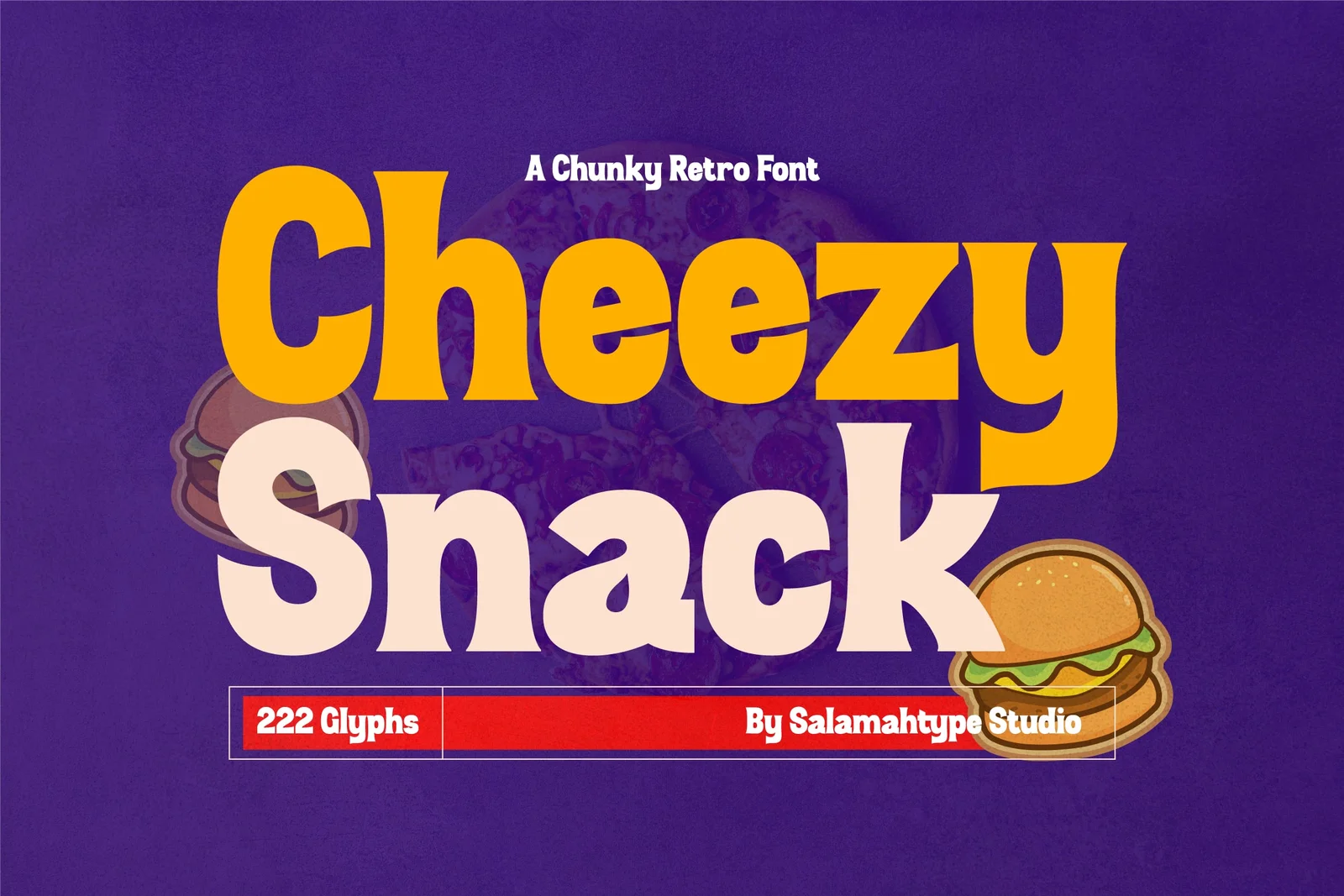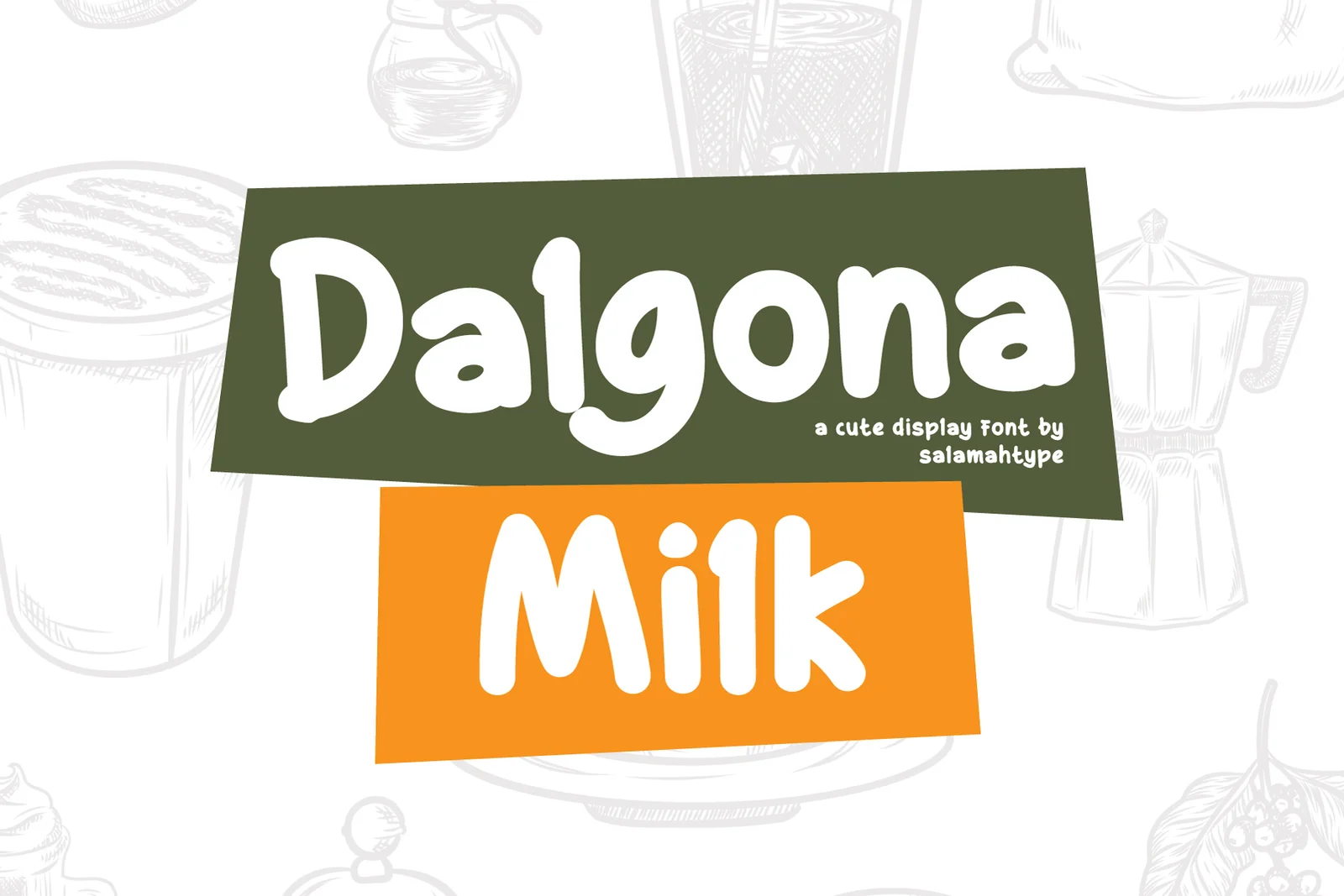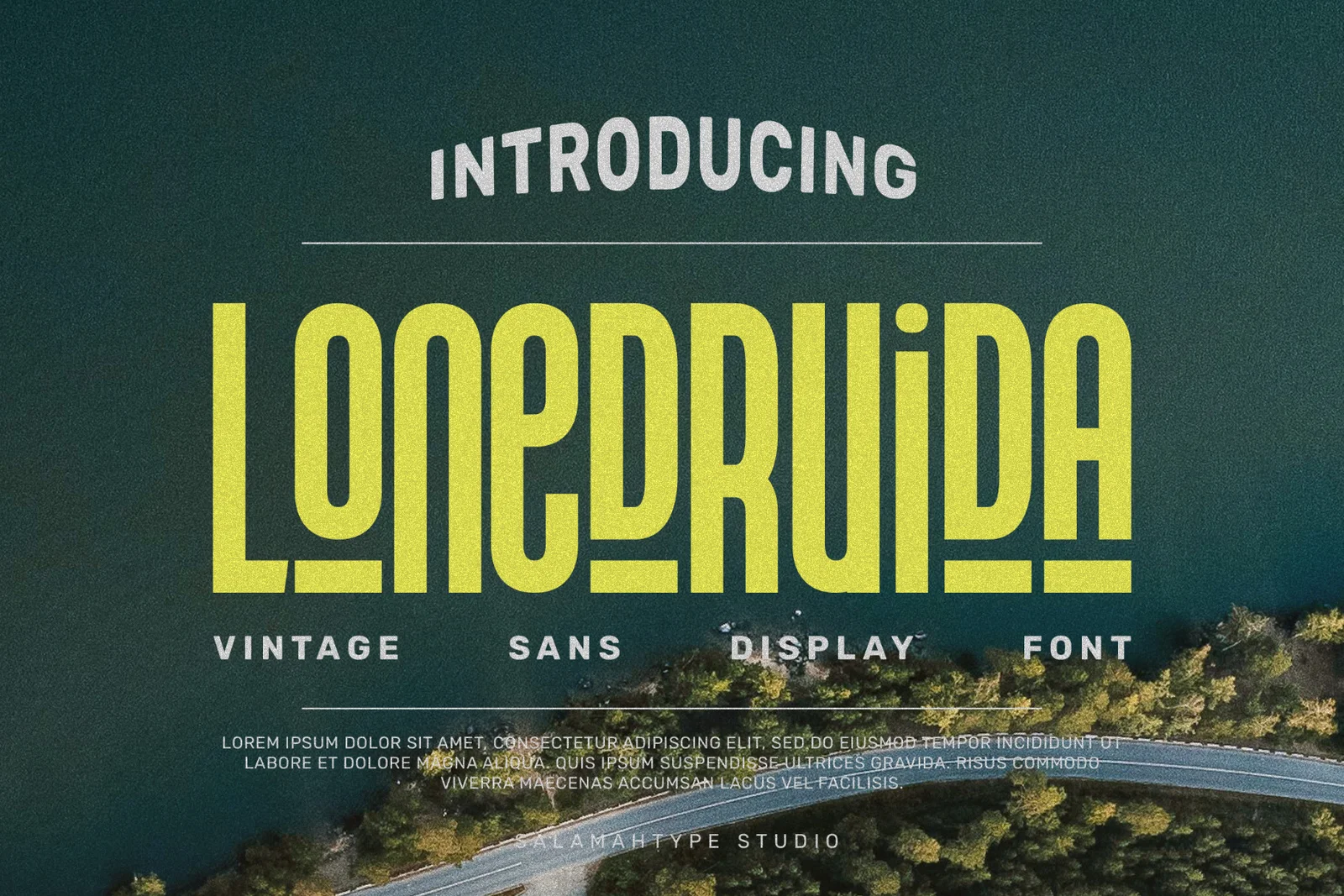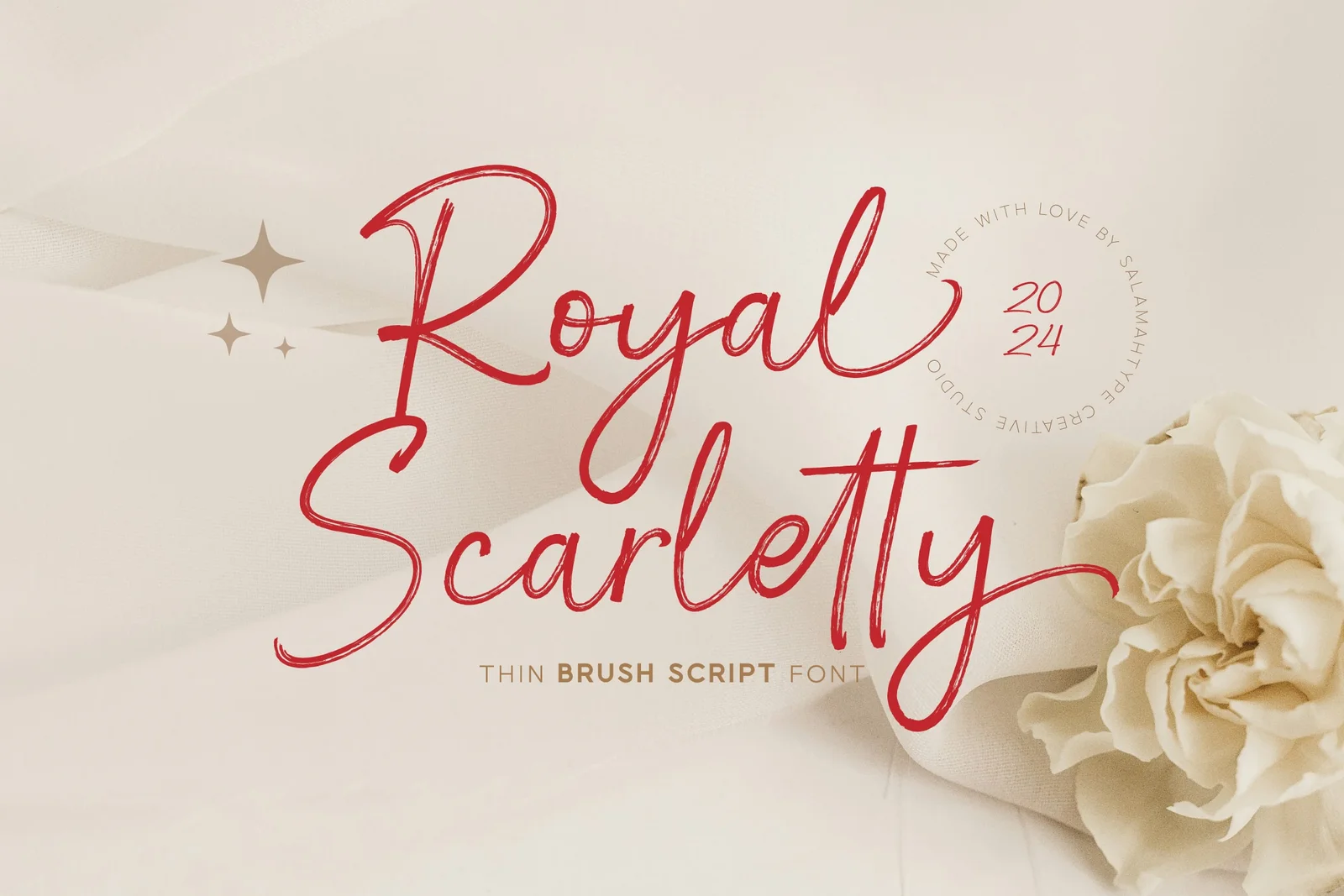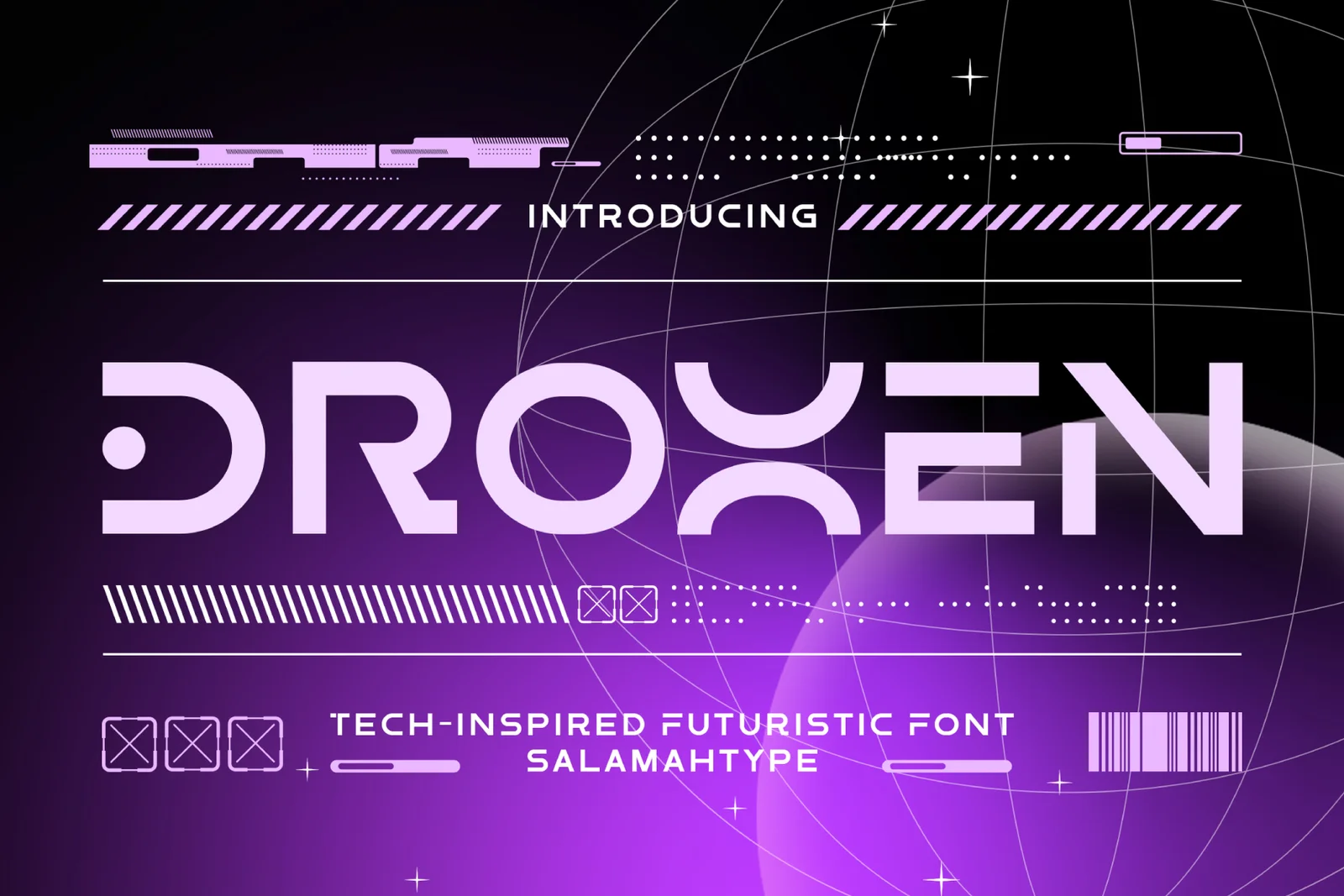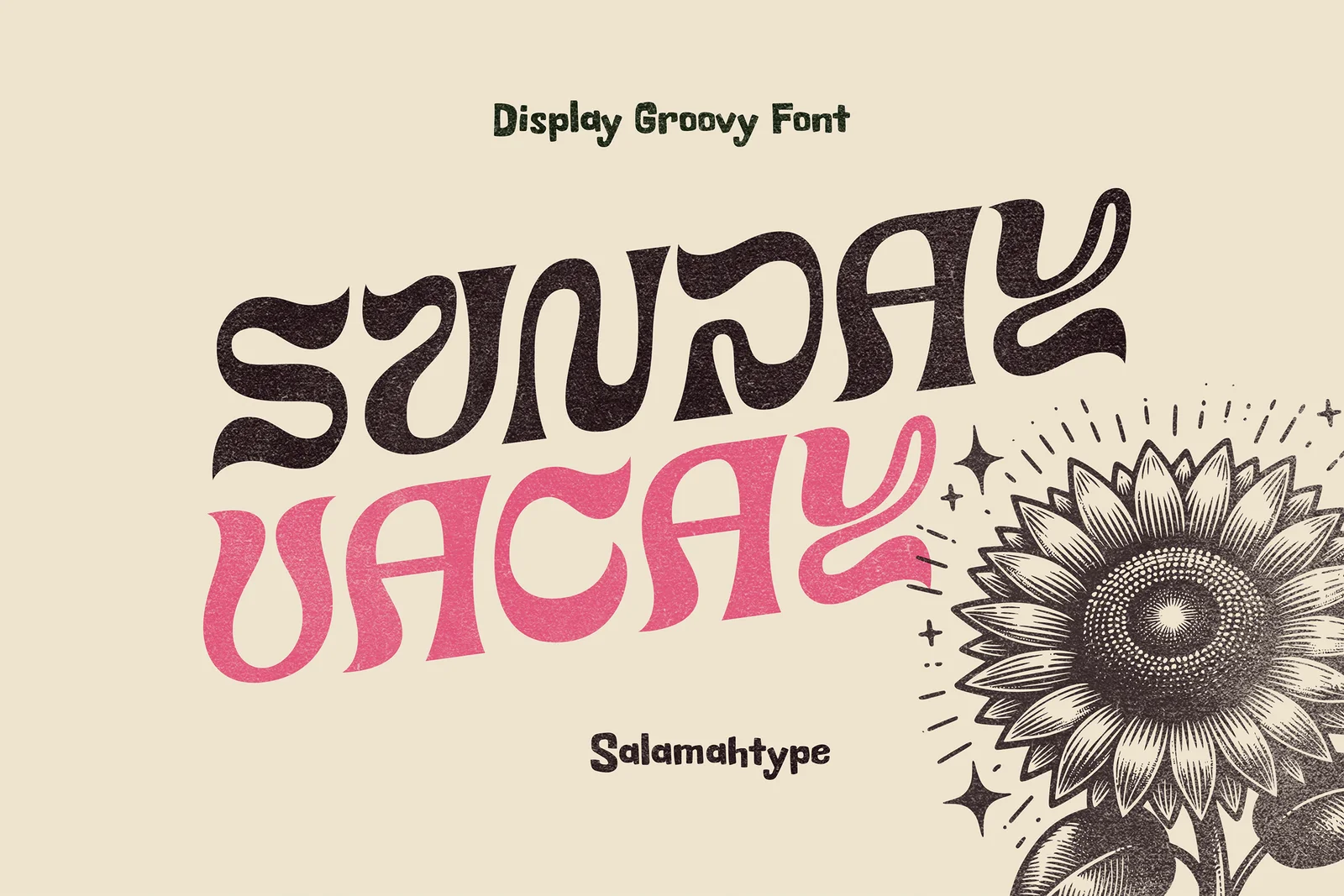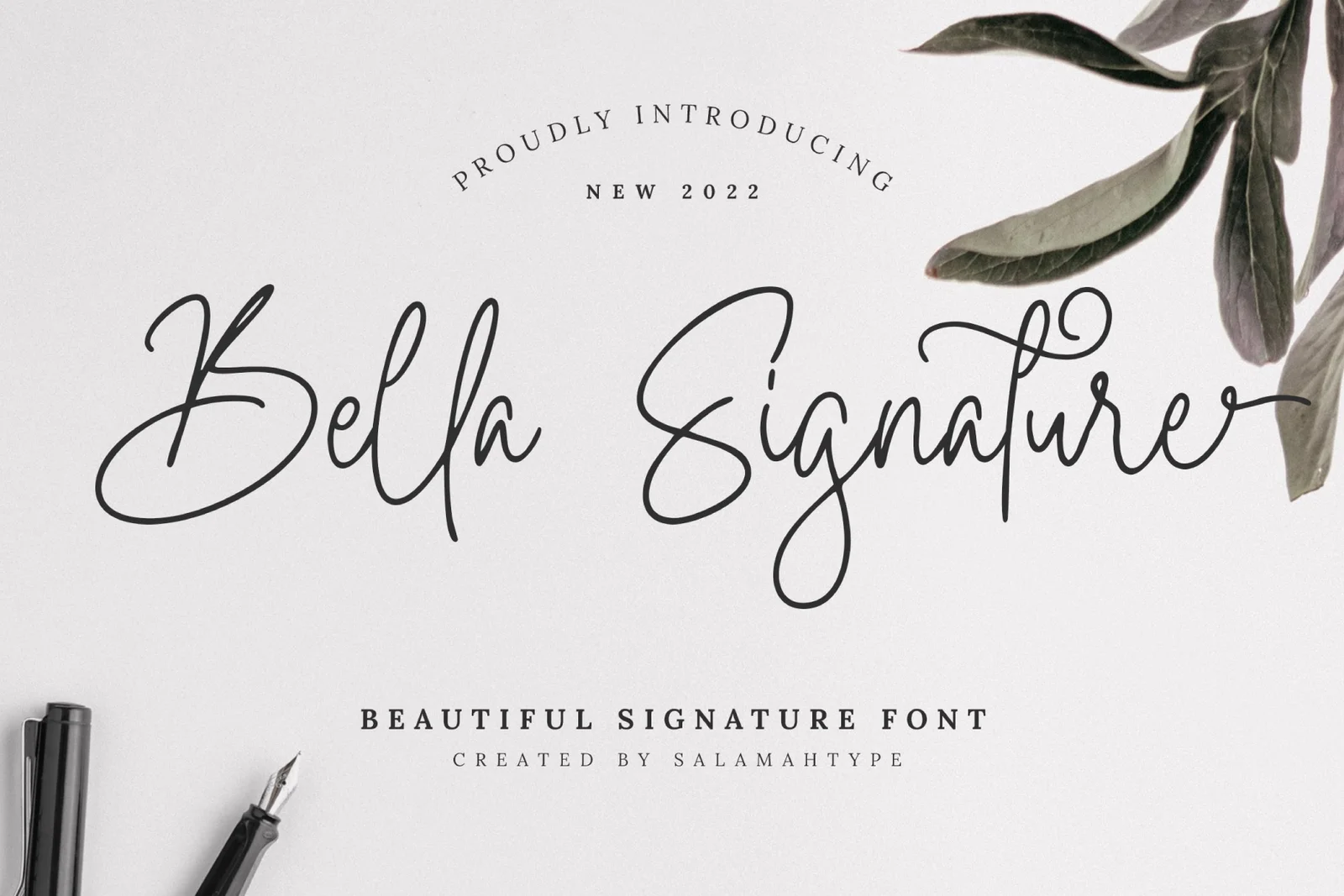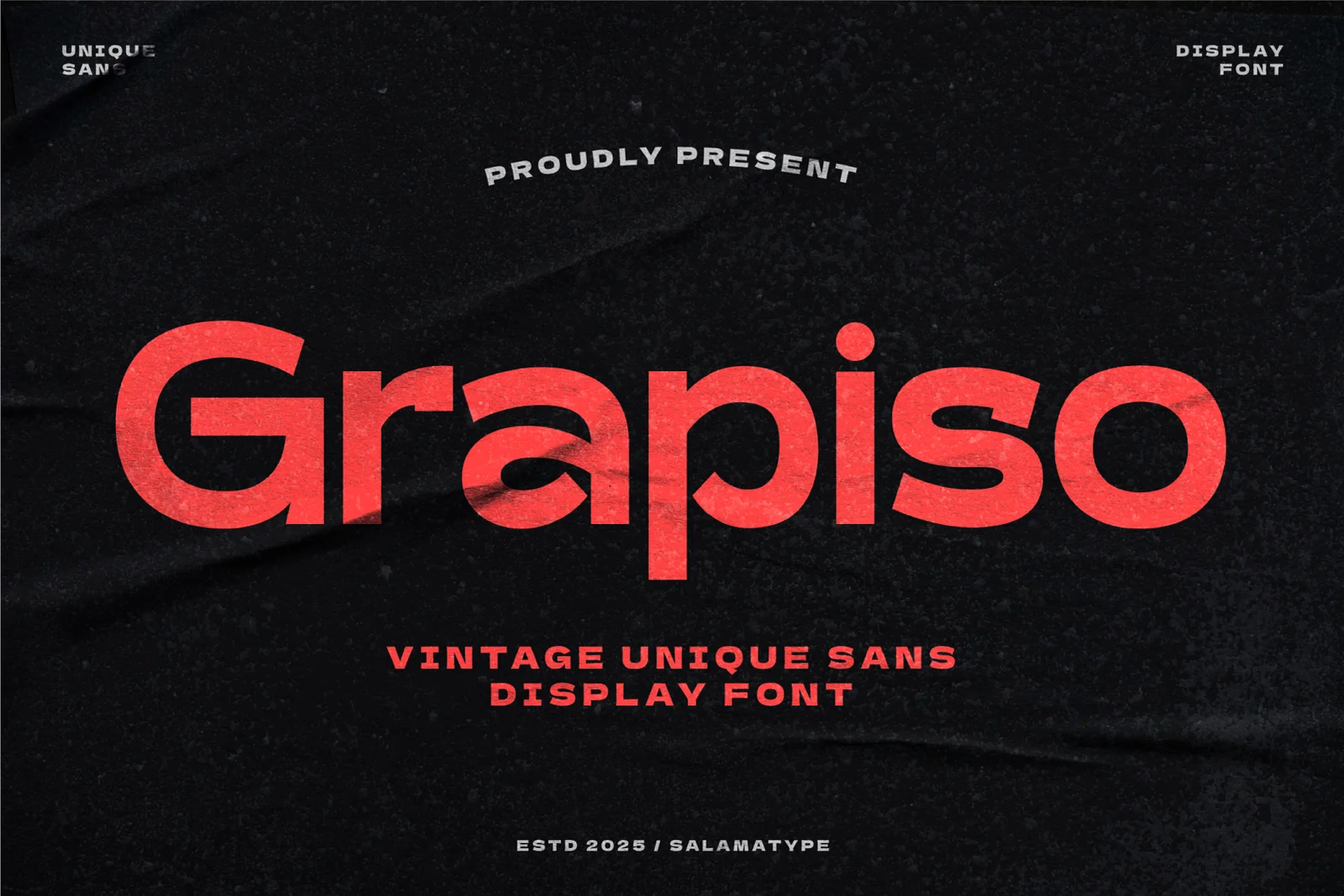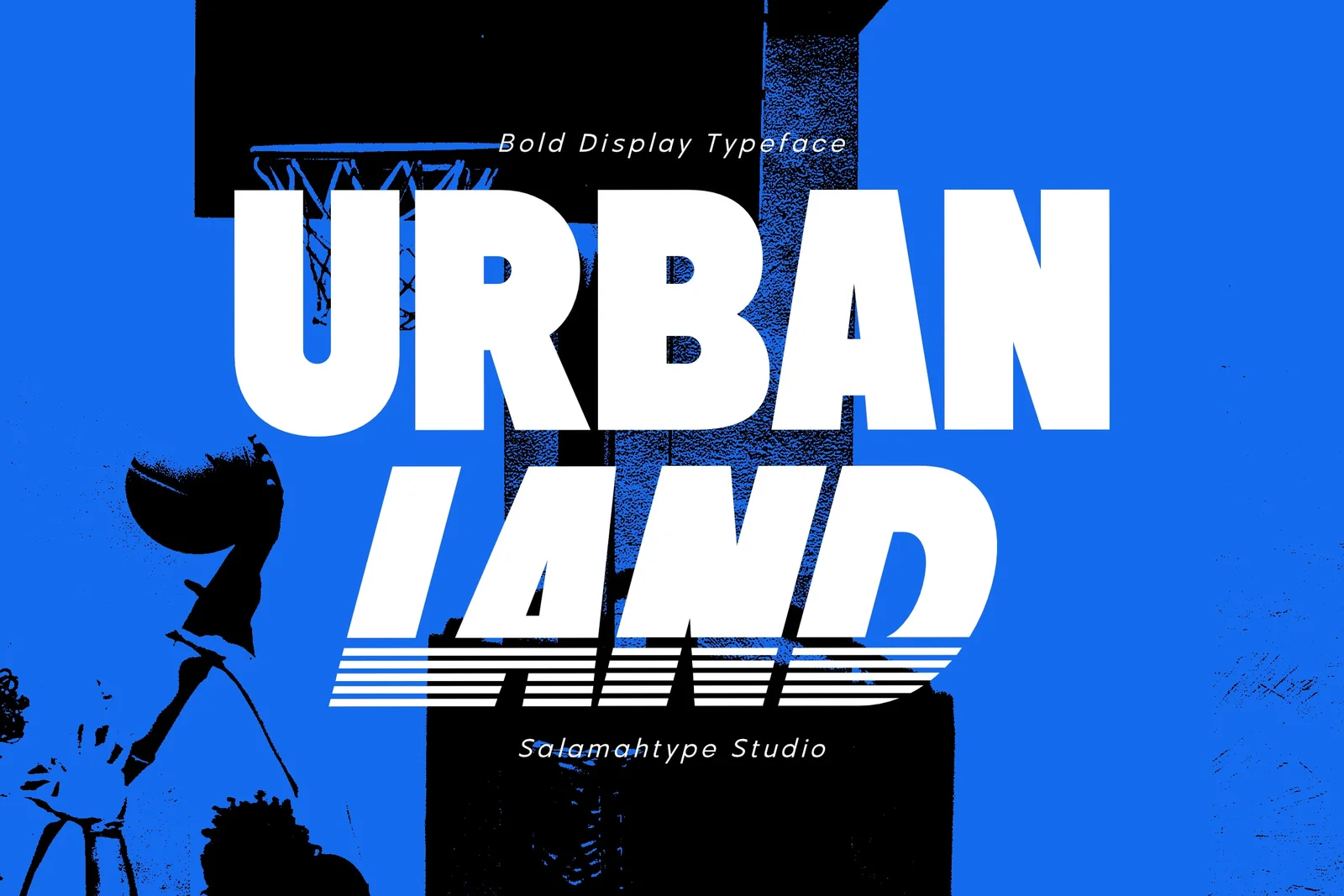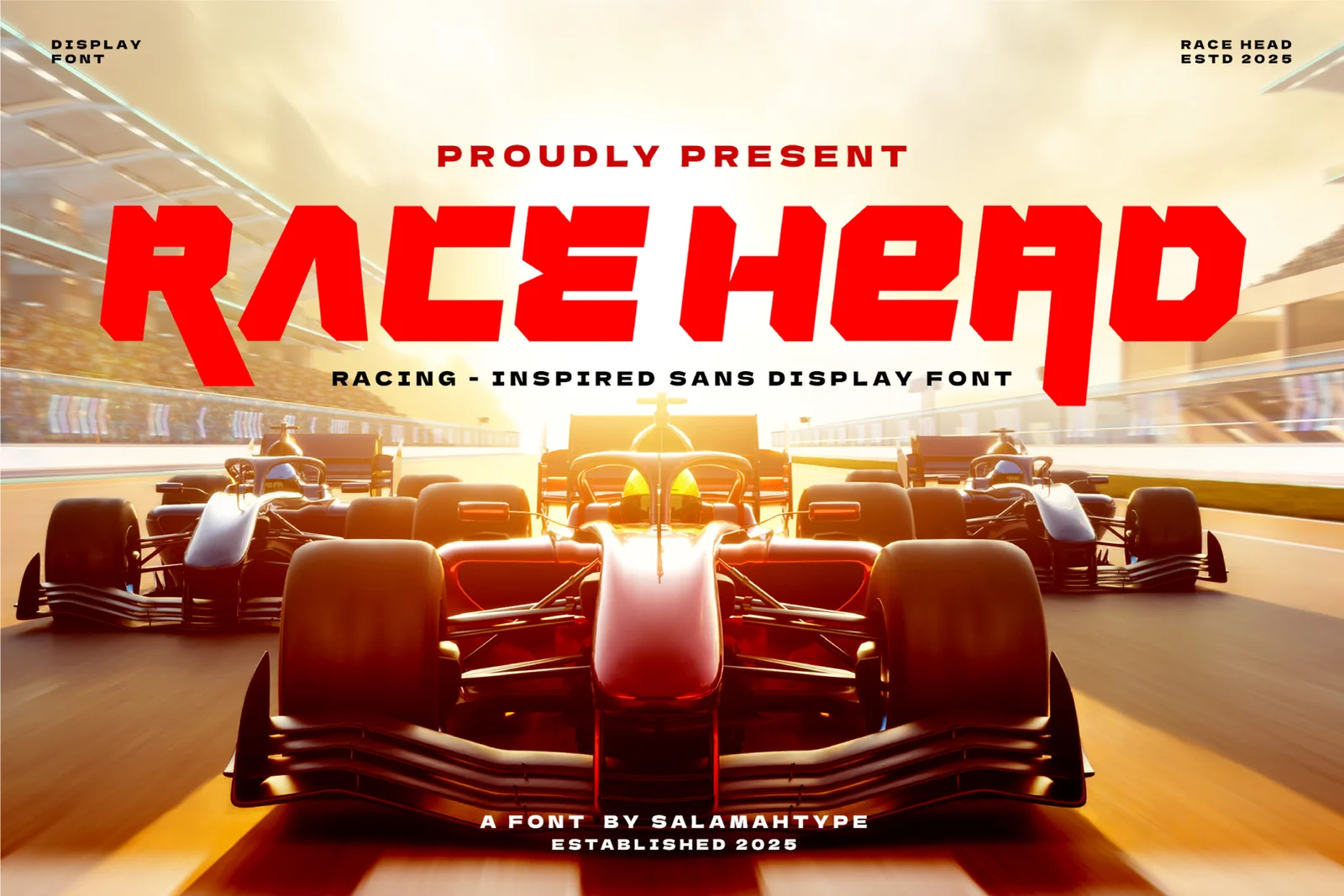
Timeless Fonts for Logo: Make Your Brand Always Relevant
Finding the right font for your logo is more than just a design choice—it’s a decision that shapes how your brand is seen for years to come. So, here are 25 timeless fonts for logo that strike the perfect balance between classic appeal and modern versatility.
Key Takeaways
• A well-chosen, classic font keeps your logo relevant for years without looking outdated.
• Clean, balanced letterforms work across all media and maintain legibility at any size.
• The best timeless fonts adapt well to different industries, from fashion and food to tech and wellness.
• The right font subtly conveys trust, elegance, strength, or creativity, essential for lasting brand recognition.
Timeless Fonts for Logo
Here are timeless fonts for logo that will keep your brand looking fresh, relevant, and stylish across any aesthetic or industry.
1. Cheezy Snack
Cheezy Snack by Salamah Type
Cheezy Snack is an excellent choice for a food business because it combines a strong identity with a cheerful vibe to show that the food is meant for everyone.
2. Dalgona Milk
Dalgona Milk by Salamah Type
This cheerful handwritten font is also a great fit for food and beverage businesses, as it gives the impression of a welcoming space for everyone.
3. Lonedruida
Lonedruida by Salamah Type
Lonedruida brings a high-end, minimal aesthetic that’s equally at home on a boutique café menu or a sleek product label with sharp lines and elegant ligatures.
4. Royal Scarletty
Royal Scarletty by Salamah Type
Royal Scarletty is a handwritten type of font with thin strokes and elegant vibes suited for fashion, beauty, and weddings.
5. Droxen
Droxen by Salamah Type
Droxen is a bold, futuristic all-caps font that fits for logos, websites, and any creative design in the gaming industry or sports.
6. Sunday Vacay
Sunday Vacay by Salamah Type
Sunday Vacay is a fun font featuring a bold, wavy, and decorative style that is suitable for arts events or exhibitions.
7. Bella Signature
Bella Signature by Salamah Type
Bella Signature is a clean and elegant handwritten script font that is perfect for wedding invitations and a boutique logo with its elegant font.
8. Grapiso
Grapiso by Salamah Type
Grapiso’s sharp, modern design makes it ideal for music events and sports branding that need a modern, energetic edge.
9. Urban Land
Urban Land by Salamah Type
Urban Land is a bold display font that is perfect for sport-themed projects and concerts, or anything with contemporary branding.
10. Race Head
Race Hero by Salamah Type
Designed for speed and impact, Race Head’s strong letterforms and aggressive alternates make it ideal for motorsport branding and championship headlines.
11. Wings Signature
Wings Signature by Salamah Type
Wings Signature is an elegant handwritten script font perfect for fashion, beauty, lifestyle, packaging, and social media designs.
12. Monday Sans
Monday Sans by Salamah Type
Monday Sans is a clean and minimalist sans-serif font, and it is a font used for timeless logo. It is ideal for projects that value simplicity and modern design, such as beauty events or exhibitions.
13. Mangola
Mangola by Salamah Type
Best suited for fashion and lifestyle brands, Mangola is a bold and stylish script font that conveys confident vibes.
14.  Black Phantom
Black Phantom by Salamah Type
Black Phantom is a bold, vintage-inspired sans serif display font that is ideal for automotive posters, motorcycle events, and sport-related design.
15. Maintanker
Maintanker by Salamah Type
Maintanker is a bold, condensed sans-serif font and is particularly well-suited for art exhibition posters.
16. Grance
Grance by Salamah Type
Grance is a refined serif typeface with a clean, luxurious look, making it ideal for branding art exhibitions.
17. Cheeky Moghster
Cheeky Moghster by Salamah Type
Cheeky Moghster is a fun slab serif font with playful and bold letterforms, making it an excellent choice for children’s books and event poster projects.
18. Reach
Reach by Salamah Type
Reach is a bold, vintage-inspired slab serif font that is also one of the good fonts for logos. This makes it an excellent choice for basketball competition posters, sports event branding, team logos, and merchandise
19. Handineat
Handineat by Salamah Type
Handineat is a simple and neat handwritten font that brings a personal and creative touch to your designs. Its clean and easy-to-read style makes it perfect for artsy workshops such as painting, pottery, and other creative events.
Now You Know 25 Timeless Fonts for Logo
From bold display types to playful scripts and elegant serifs, Salamah Type offers a diverse collection of fonts suited for everything from food posters to art exhibitions, sports branding to children’s books.Among them, Grance stands out as one of the timeless fonts for logo, combining classic elegance with modern refinement. It is perfect for branding that needs to make a lasting impression. If you’re curious, browse the full Salamah Type library and let your next project speak with style!